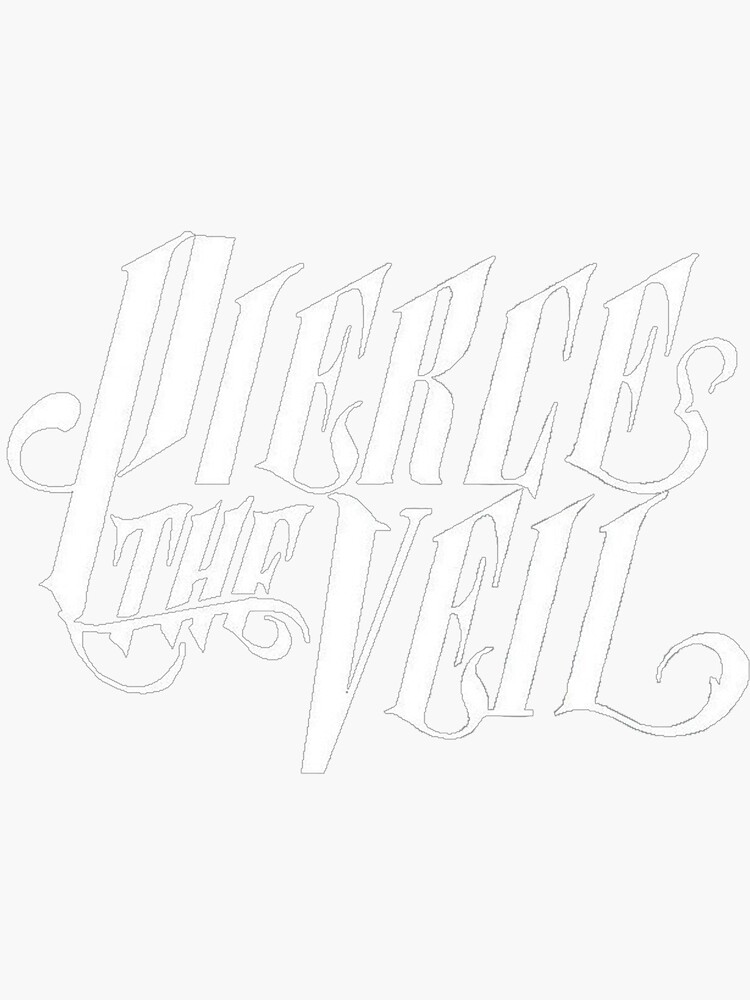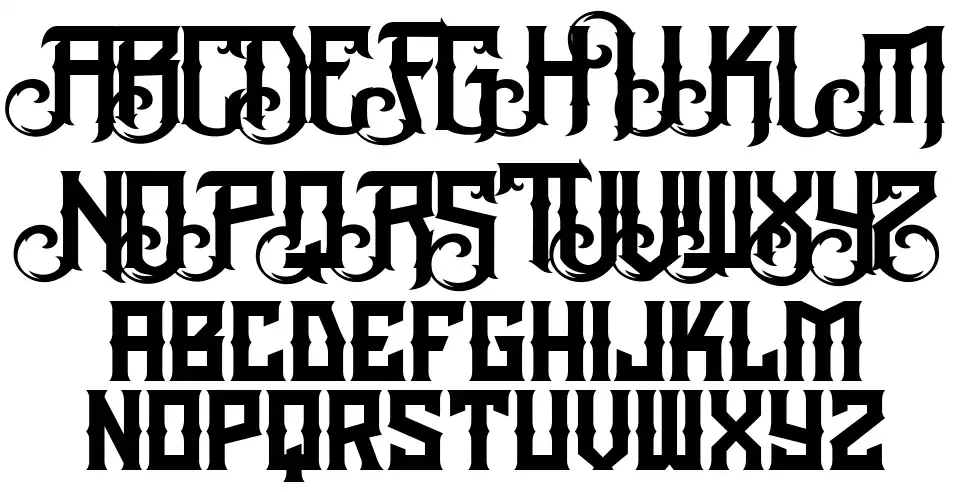
Pierce The Veil Font . Browse by alphabetical listing, by style, by author or by popularity. a user asks for the font name used on the jaws of life album by pierce the veil, a rock band. Browse by alphabetical listing, by style, by author or by popularity. The font is billhead 1900, a vintage. archive of freely downloadable fonts. Another user suggests railroad gothic atf medium, an. Btw, it's ptv's new album and it's pretty. i wanna know the font that's used for 'pierce the veil' in this image. Learn how to install and use the fonts for musical band posters, singer posters, and tribute events. a user asks for fonts that resemble the customized style of writing on the pierce the veil logo for an art project. fontsherlock offers free download of pierce the veil font, a regular type font inspired by the band's album cover artwork. archive of freely downloadable fonts. Another user provides a link to the logo.
Browse by alphabetical listing, by style, by author or by popularity. archive of freely downloadable fonts. a user asks for the font name used on the jaws of life album by pierce the veil, a rock band. a user asks for fonts that resemble the customized style of writing on the pierce the veil logo for an art project. The font is billhead 1900, a vintage. Another user suggests railroad gothic atf medium, an. fontsherlock offers free download of pierce the veil font, a regular type font inspired by the band's album cover artwork. i wanna know the font that's used for 'pierce the veil' in this image. Btw, it's ptv's new album and it's pretty. Another user provides a link to the logo.
Pierce The Veil Font archive of freely downloadable fonts. The font is billhead 1900, a vintage. Learn how to install and use the fonts for musical band posters, singer posters, and tribute events. a user asks for the font name used on the jaws of life album by pierce the veil, a rock band. archive of freely downloadable fonts. i wanna know the font that's used for 'pierce the veil' in this image. fontsherlock offers free download of pierce the veil font, a regular type font inspired by the band's album cover artwork. archive of freely downloadable fonts. Btw, it's ptv's new album and it's pretty. Browse by alphabetical listing, by style, by author or by popularity. Another user suggests railroad gothic atf medium, an. Another user provides a link to the logo. a user asks for fonts that resemble the customized style of writing on the pierce the veil logo for an art project. Browse by alphabetical listing, by style, by author or by popularity.